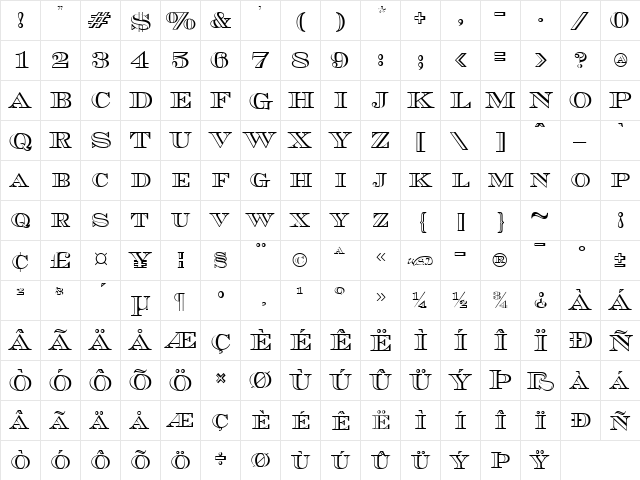
Currency Outline Regular
Design Context for Currency Outline Typeface
Currency Outline brings ornamental detail and strong personality to headlines and identities, where visual impact matters more than quiet functionality.
Font Pairing: Pair with a clean neutral sans-serif for body copy to let Currency Outline's character lead without overwhelming the composition.
Pro Tip: Treat Currency Outline as the centrepiece of your typographic hierarchy. One strong heading set in a decorative face can carry an entire layout.